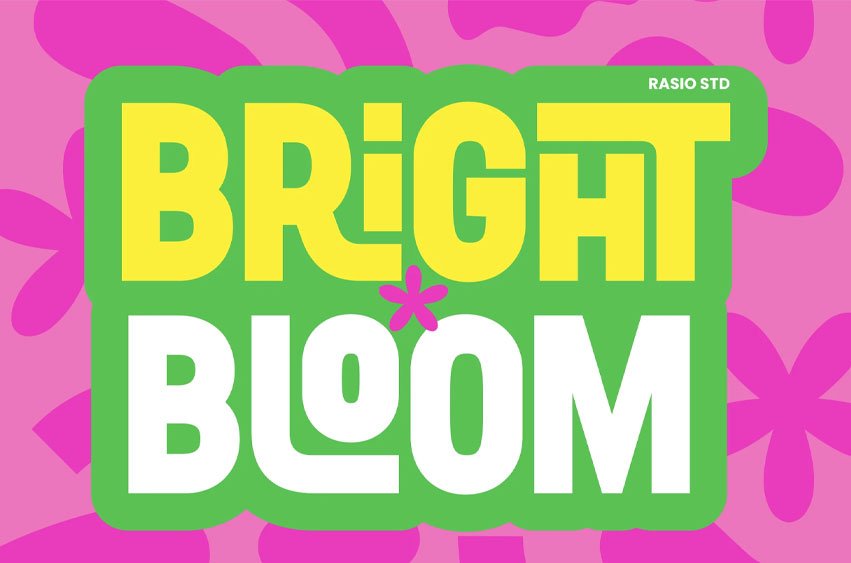
Bright Bloom Font Fun Display Font features bold rounded letterforms with playful proportions, cheerful retro-inspired styling, and vibrant colorful aesthetics designed for energetic visual projects. The font includes uppercase and lowercase characters, numerals, punctuation, and eye-catching display typography optimized for posters, kids branding, snack packaging, playful merchandise, and social media graphics. Its chunky shapes and bold spacing create a strong visual impact while maintaining readability across print and digital layouts.
Relevance and Use Cases is perfect for playful branding, children-themed products, snack packaging, toy promotions, festival posters, colorful merchandise, and cheerful social media content. Its bold rounded structure and vibrant retro personality make it perfect for logos, headline typography, candy branding, playful advertising, YouTube thumbnails, stickers, greeting cards, and fun marketing visuals.